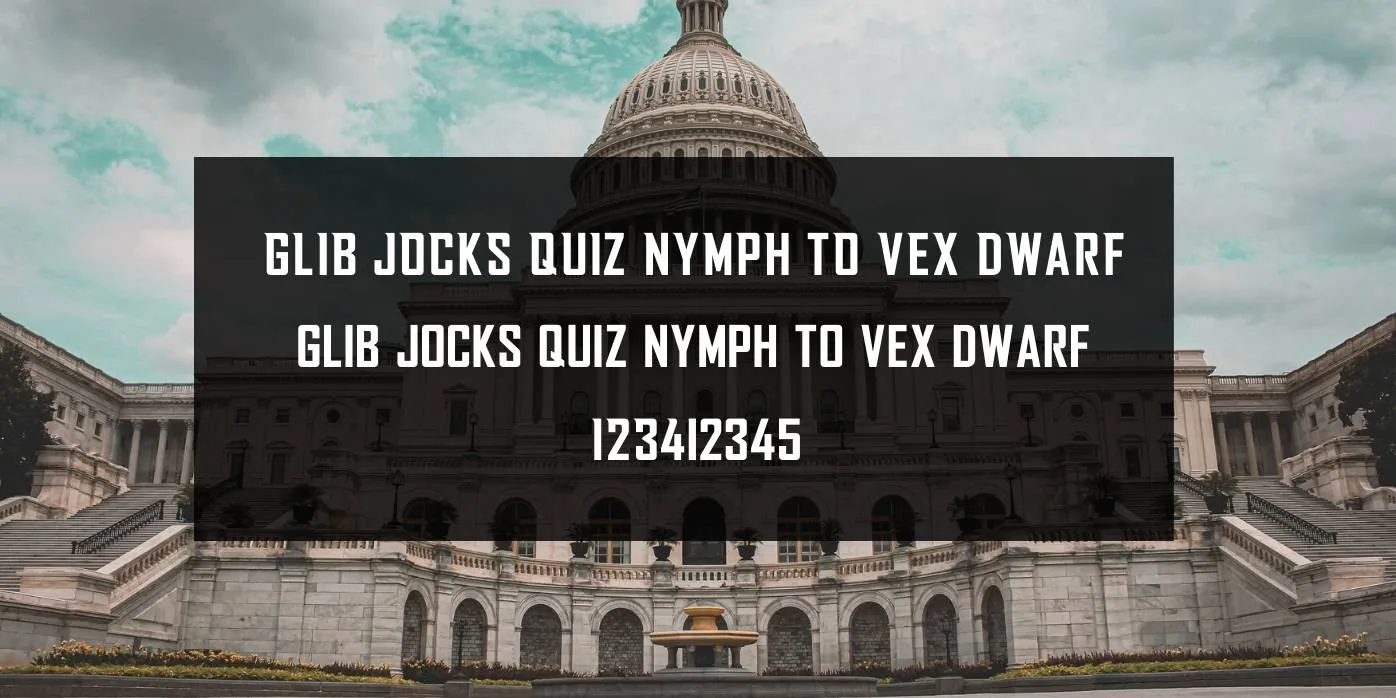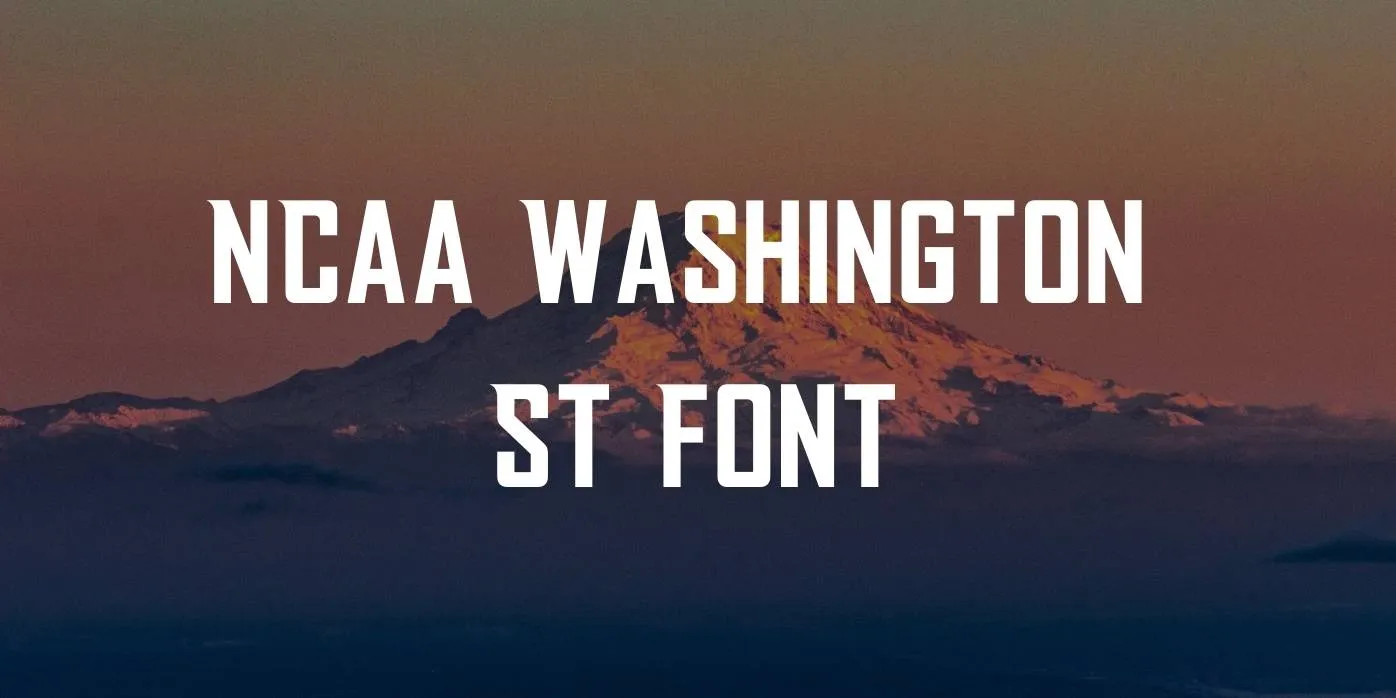
NCAA Washington St Font
NCAA Washington St Font belongs to the sans serif font family. This font is widely used for university websites and printouts. This staggering font has been designed by Tobias Frere-Jones. This family is well designed to use in the CSS.
This gorgeous Font is a humanist sans serif typeface. It is characterized by its clean lines and simple shapes. The NCAA Washington St Typeface was inspired by the work of early 20th-century typeface designers. It is suitable for Canva, and Adobe Photoshop.
This outstanding and classic is available in two weights, Regular and Bold. It supports both Latin and Cyrillic character sets. You can also utilize its online generator tool which is suitable for all graphic design projects.